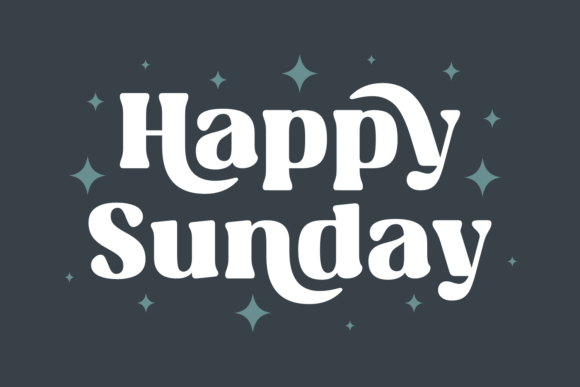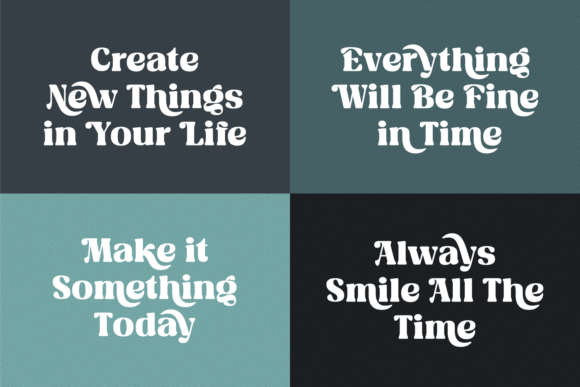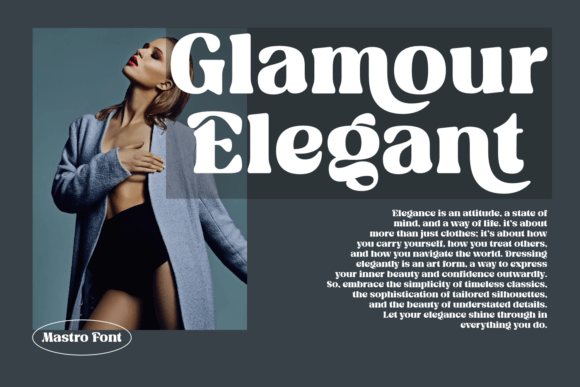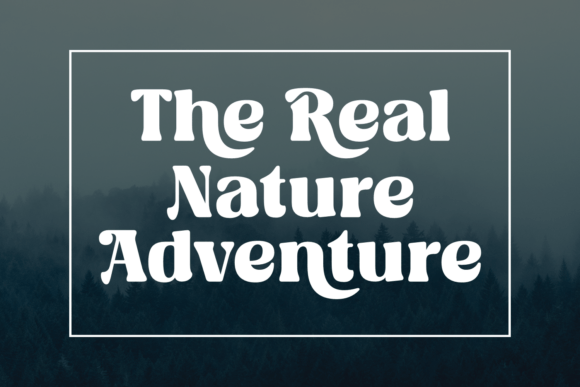
Introduction to Mastro Font
Have you ever stared at a blank page, trying to find the perfect font to bring your creative project to life? For designers, this moment of inspiration is often a make-or-break moment. It’s when you need a design resource that not only looks great but also adds a touch of elegance to your work. That’s where the Mastro Font comes in – a vintage serif font that’s sure to captivate your audience.
With its classic and timeless feel, the Mastro Font is the perfect choice for designers looking to add a high-quality touch to their designs. Whether you’re working on an invitation, logo, or printed material, this font is sure to make a statement. Its stylish letters and subtle lines at the ends give it a sophisticated look that’s both visually appealing and easy to read.
Key Features of Mastro Font
- Unique, stylish design elements to enhance your creative project
Honest Review: Mastro Font
As a designer, I’m always on the lookout for high-quality design resources that can elevate my creative projects. Recently, I had the chance to work with the Mastro Font, and I’m excited to share my honest review.
What works well: ✨ The Mastro Font is incredibly versatile, making it perfect for a wide range of design projects. The font is clean, modern, and highly legible, making it easy to read even at smaller font sizes. Additionally, the font is available for free download, making it a great resource for designers on a budget.
What doesn’t work so well: ⚠️ While the Mastro Font is a great resource, I did find that it can be a bit tricky to use on transparent backgrounds. The font’s bold lines can sometimes show through, creating an unwanted outline. Additionally, the font’s high quality means that it can be quite large in file size, which can be a concern for designers working with limited storage space.
Overall, I’m really impressed with the Mastro Font. While it may have a few limitations, its high quality and versatility make it a valuable addition to any designer’s toolkit.
- Perfect for creative projects requiring a clean, modern font
- Highly legible and easy to read
- Can be tricky to use on transparent backgrounds
Mastro Font is a high-quality, versatile design resource suitable for a wide range of creative projects. Its transparent background makes it easy to customize and integrate into various designs.
Tips for Getting the Most Out of Mastro Font
To maximize the benefits of Mastro Font, experiment with different font styles, sizes, and colors to create a unique design. You can also combine Mastro Font with other design resources for a cohesive look.
Common Use Cases for Mastro Font
Mastro Font is suitable for various creative projects, including graphic design, digital art, and branding materials. Its versatility makes it an excellent choice for designers seeking a high-quality, customizable font resource.